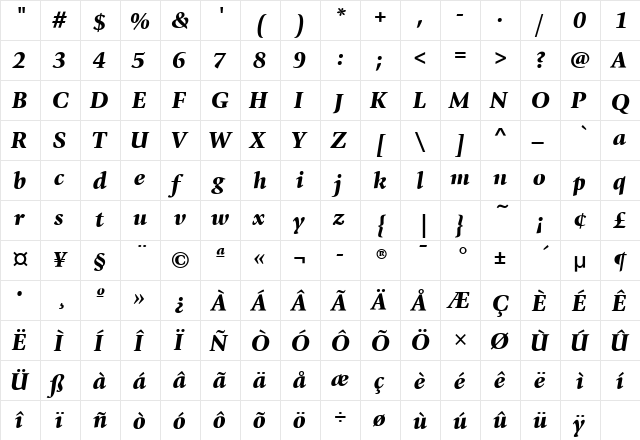
GiovanniBlkITC Italic Font Preview
GiovanniBlkITC Italic
GiovanniBlkITC Italic Font Details
Design Context for GiovanniBlkITC Typeface
GiovanniBlkITC offers clean, dependable letterforms without strong stylistic allegiance, making it a practical choice for designers who need flexibility. The dynamic lean of this cut emphasises speed and emphasis in any layout.
Pro Tip: Try GiovanniBlkITC for annotation and caption copy alongside an upright companion — the contrast in angle creates a dynamic but ordered typographic system.